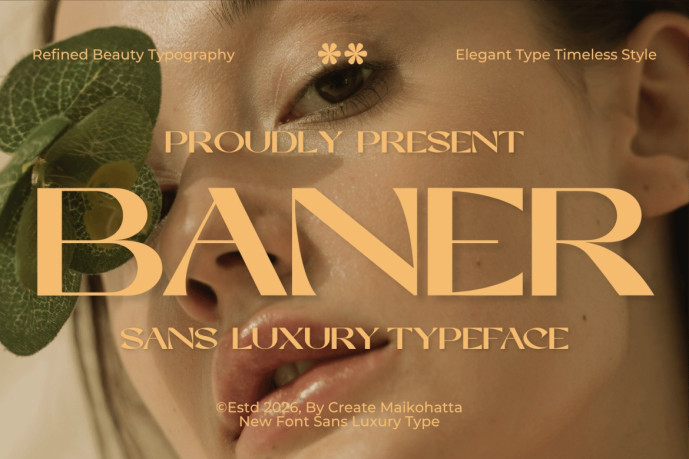
Baner Font
Designer: maikohatta
Baner Font — Sans Luxury Typeface is a refined and sophisticated typeface designed to bring elegance, modernity, and timeless beauty to your creative projects. With its clean lines, graceful proportions, and luxurious aesthetic, Baner offers a premium visual experience that stands out in high-end branding, copywriting, and design applications.
Designed with a perfect balance between contemporary minimalism and classic luxury, Baner is ideal for fashion brands, beauty products, cosmetic packaging, jewelry collections, wedding invitations, magazines, and high-end marketing materials. Its elegant letterforms create a strong visual presence while maintaining excellent legibility, making it suitable for both headlines and display typography.